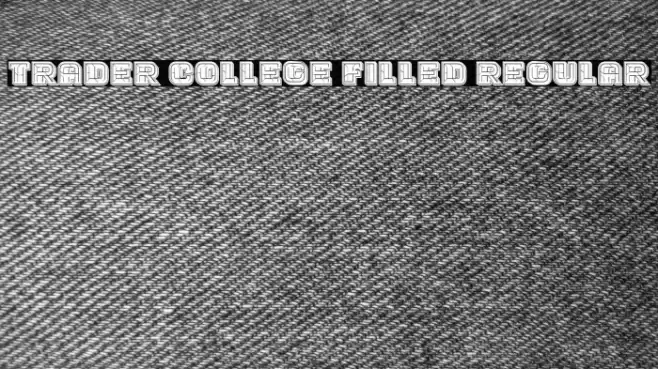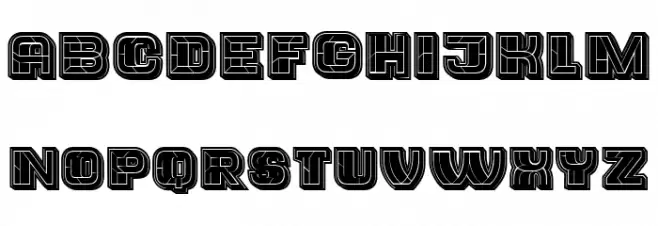
Trader College Filled Regular Font
Trader College Filled Regular Description
This font features a bold, collegiate style with a filled, blocky appearance. The characters are outlined, giving them a layered, dimensional look that is reminiscent of traditional varsity or sports team lettering. The uppercase letters are uniform in height, with strong geometric shapes and sharp angles. The design is consistent across the alphabet, maintaining a cohesive and structured aesthetic. This font is ideal for creating a strong visual impact, with its bold presence and clear readability. The overall style is both classic and modern, making it versatile for various design needs.
A bold, collegiate-style font with a filled, outlined appearance from Uncategorized fonts.
- Proposed Projects: Ideal for sports team logos, college event posters, apparel design, and branding materials.
- Overall Style: Classic
- Use Case: Logos, Headlines